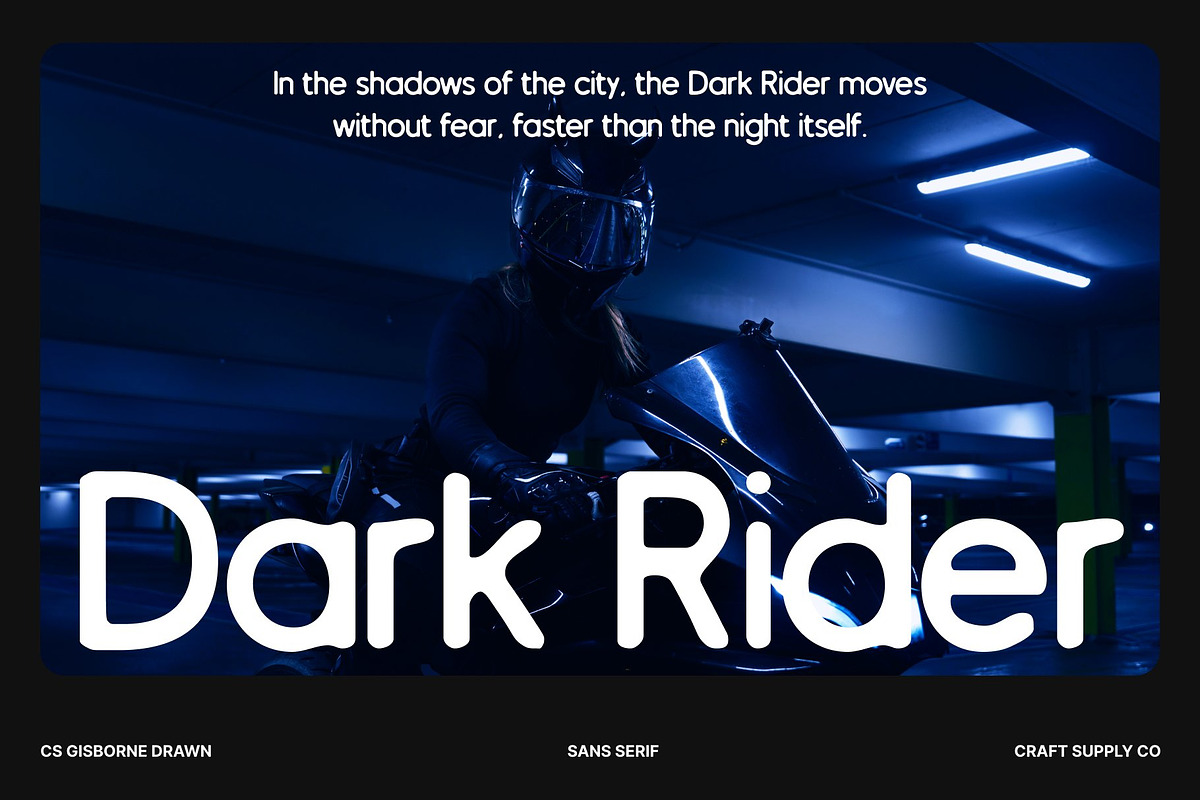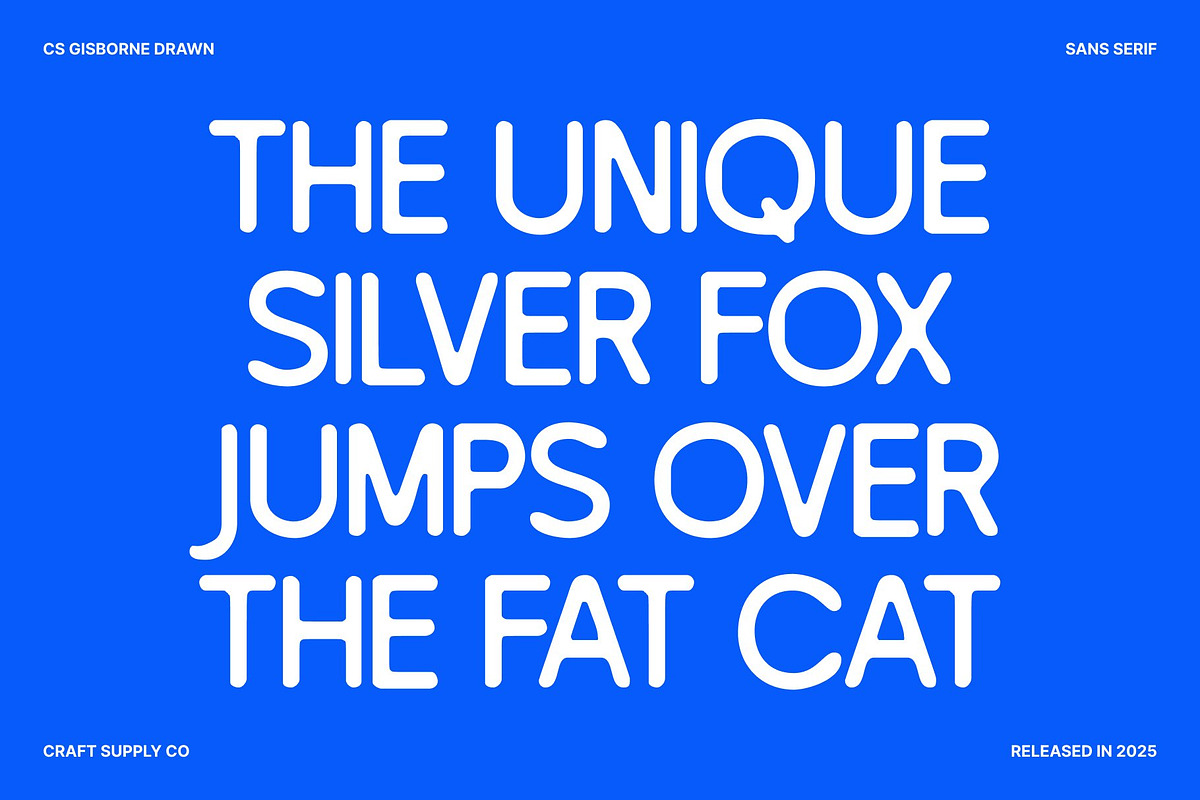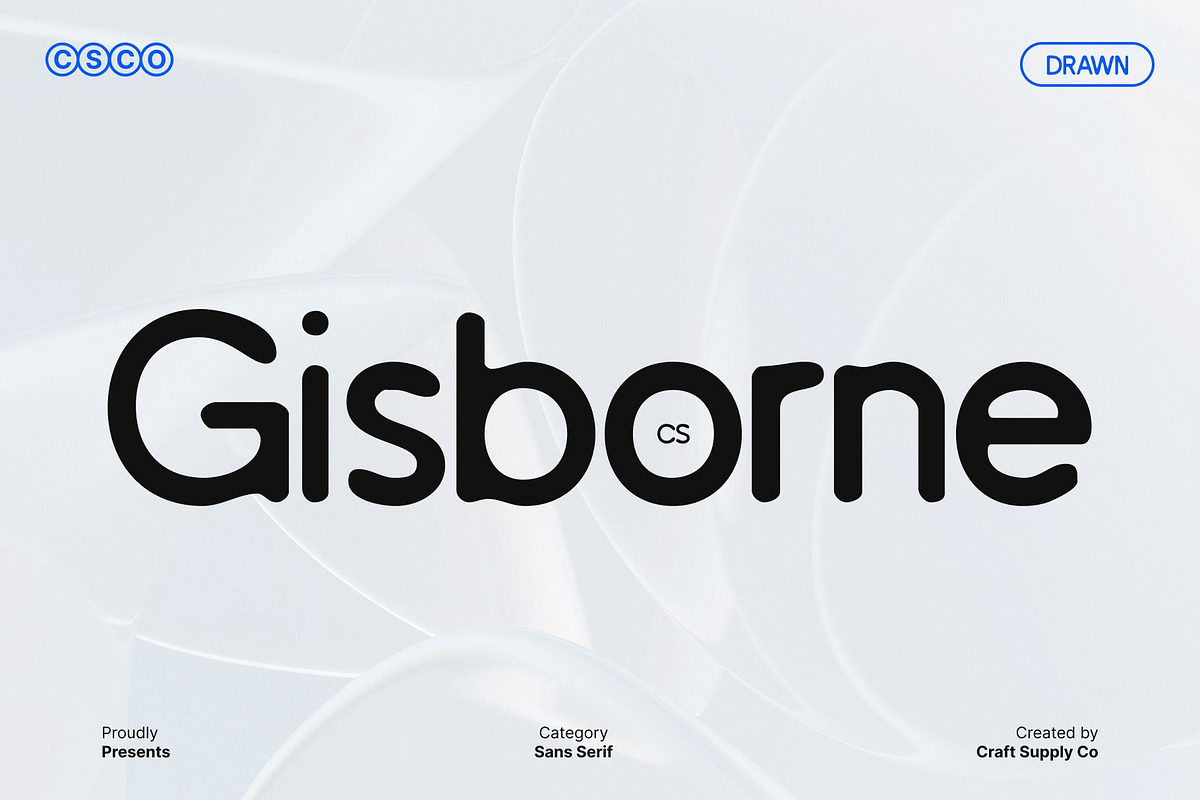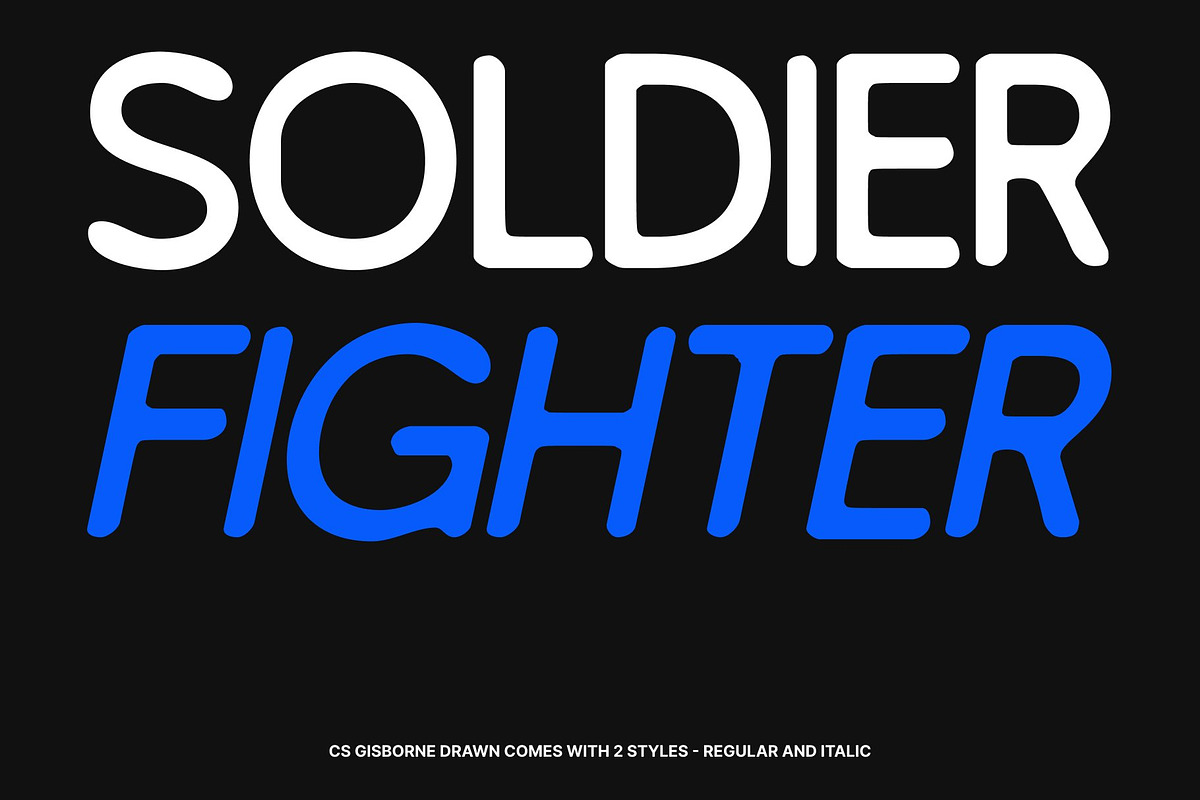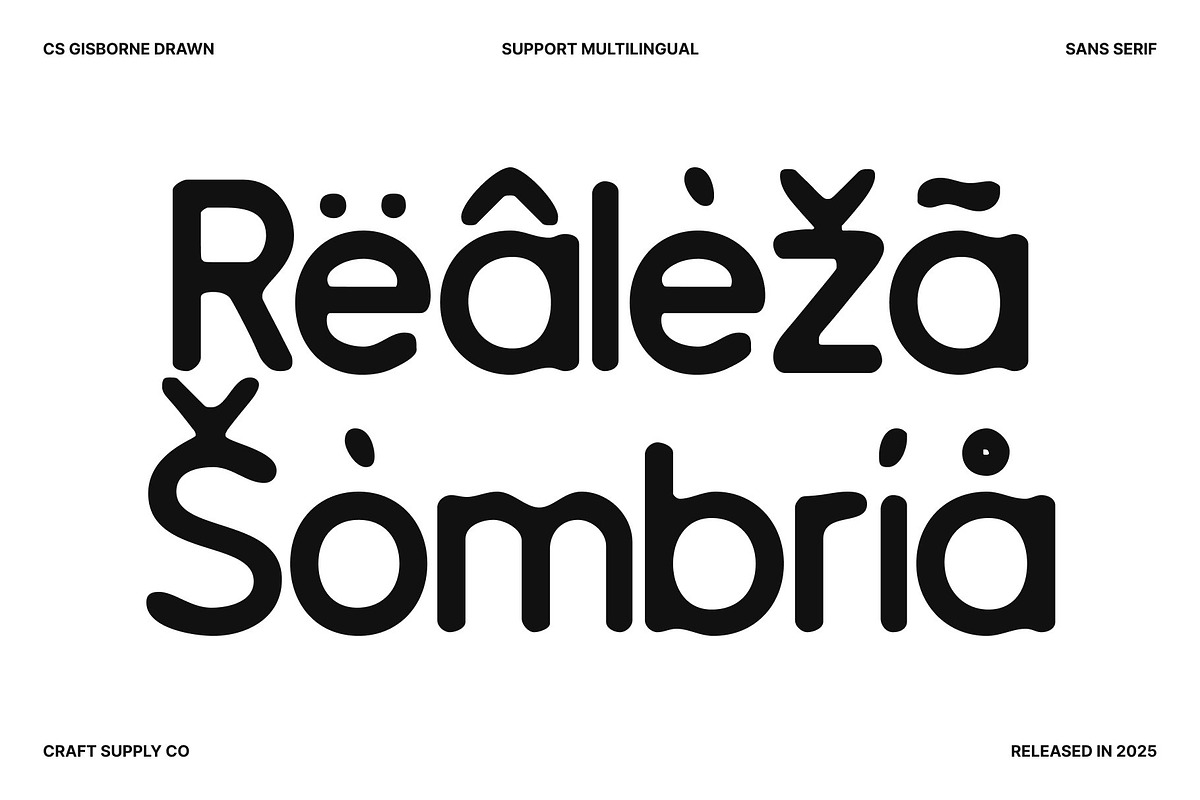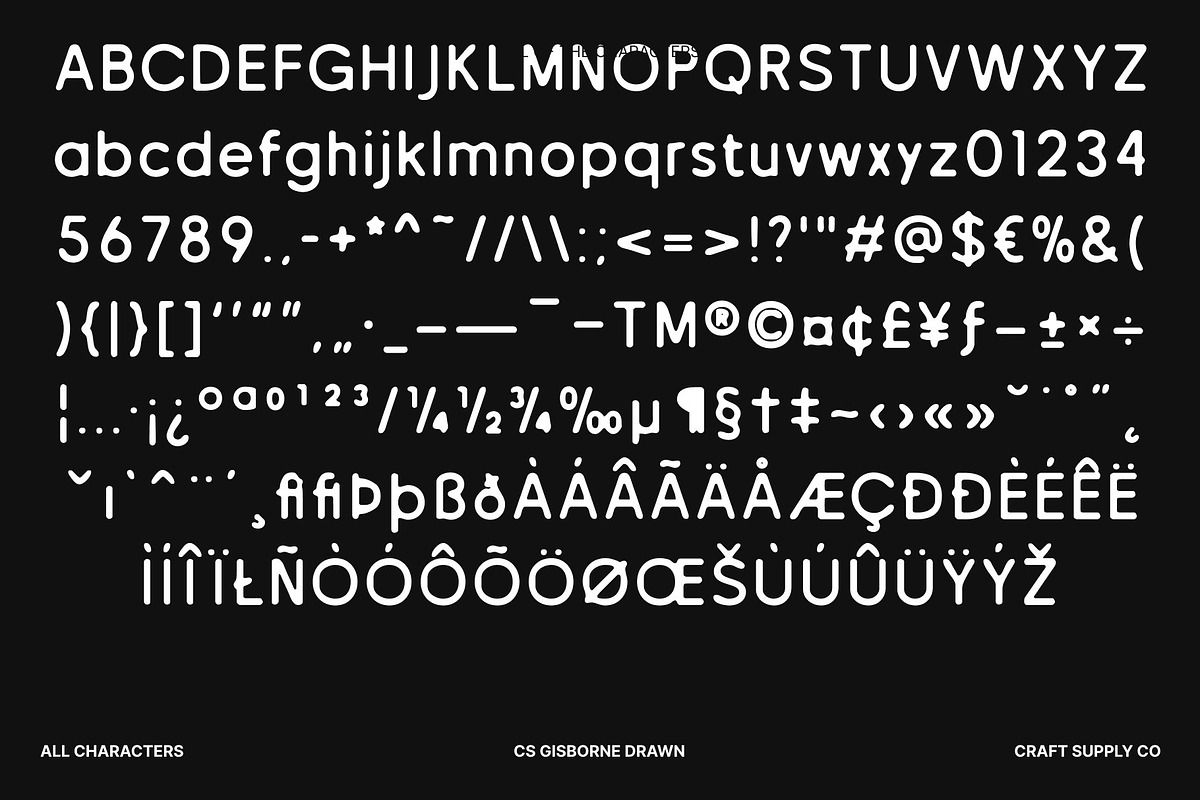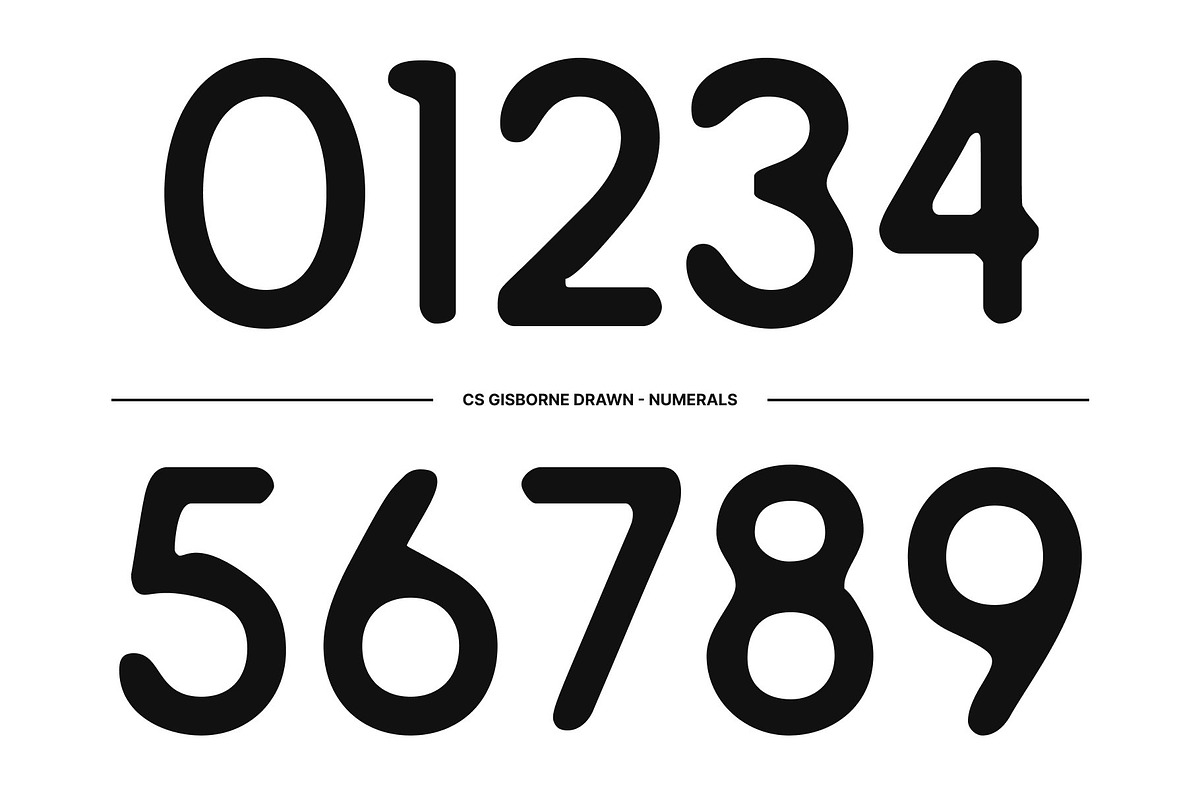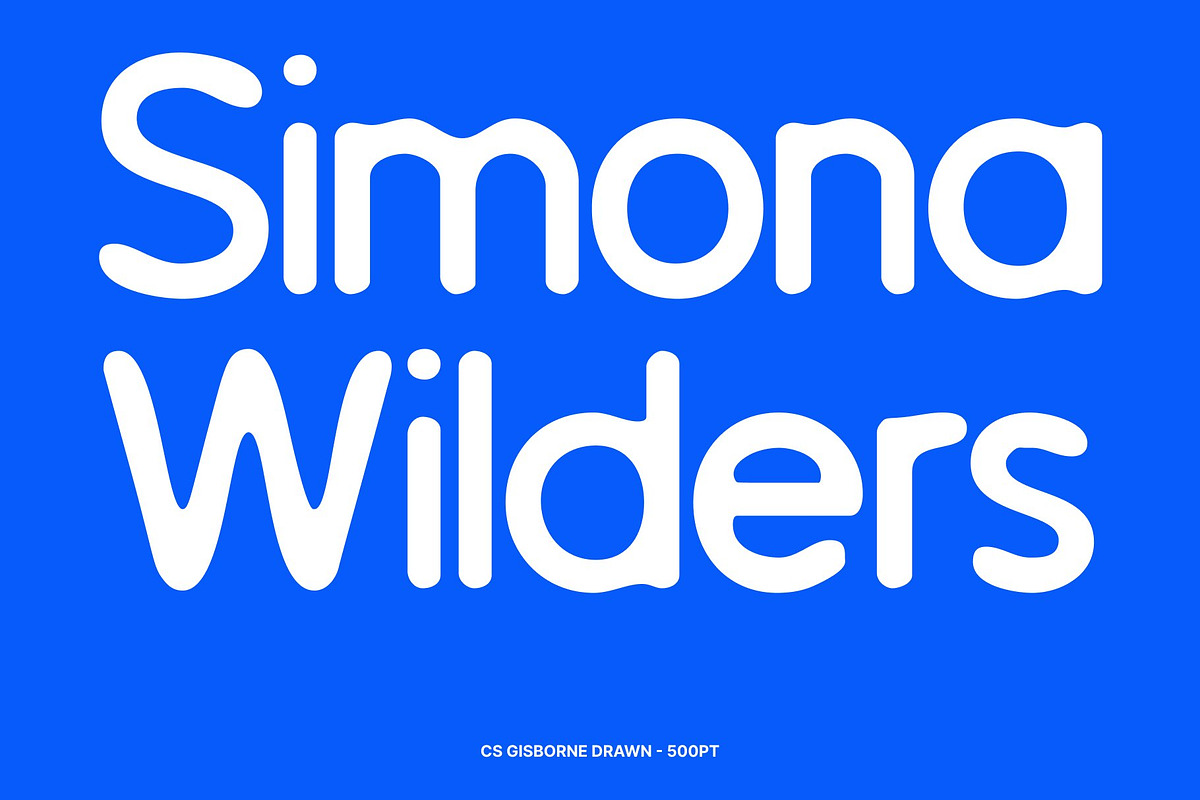
CS Gisborne Drawn
CS Gisborne Drawn – A Sharp and Elegant Contemporary Sans Serif
Precision Meets Modern Clarity This is a modern sans serif font defined by clean geometric shapes and sharp, precise detailing. The drawn effect adds subtle handcrafted nuances, giving the font an artistic touch while maintaining its polished, professional appearance. Its well-balanced structure conveys confidence, clarity, and sophistication, making it ideal for contemporary design projects.
Structured for Strength and Versatility With consistent proportions and thoughtfully crafted forms, exudes reliability and control. Each letter is designed for legibility and cohesion, ensuring a strong presence across corporate identities, tech platforms, and modern branding. The drawn detailing enhances personality without compromising the font’s structured, professional aesthetic.
Ideal for Modern Communication This typeface performs exceptionally in logo, and editorial layouts. Its geometric foundation communicates modernity, while the subtle handcrafted nuances add warmth and approachability, maintaining readability and visual harmony across all sizes and formats.
A Timeless Professional Look This font blends minimalism with refined sharpness, offering a versatile, contemporary style that stands the test of time. It speaks with calm authority, perfect for corporate reports, clean UI designs, packaging, and professional communications that demand clarity, and subtle creative flair.
- CS Gisborne Drawn Regular
- CS Gisborne Drawn Italic